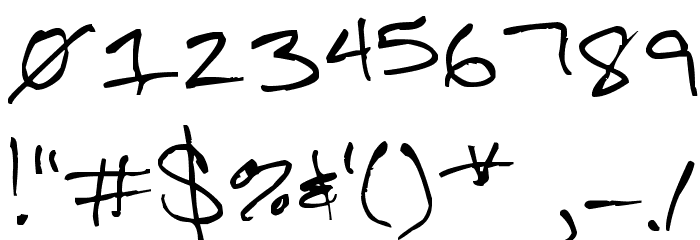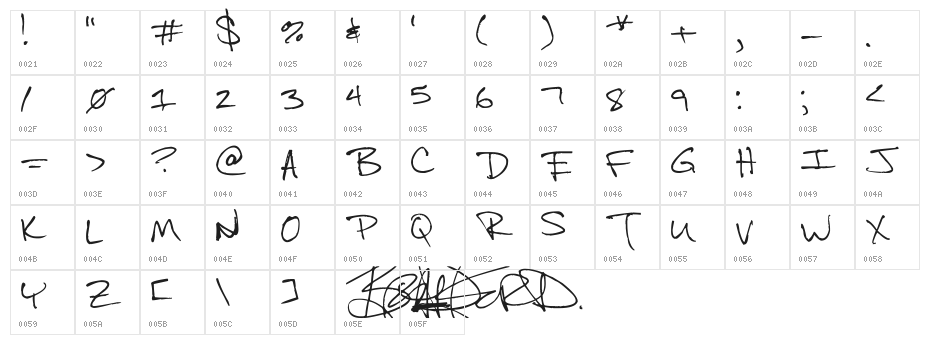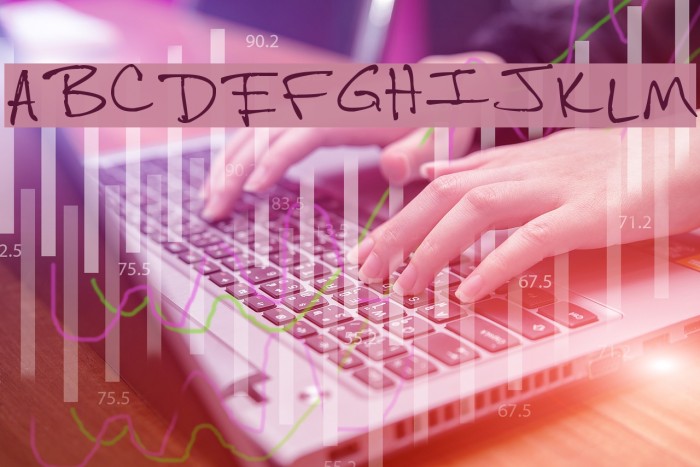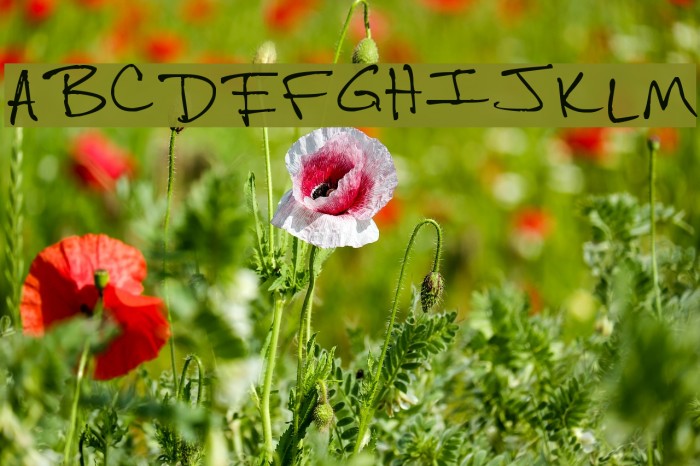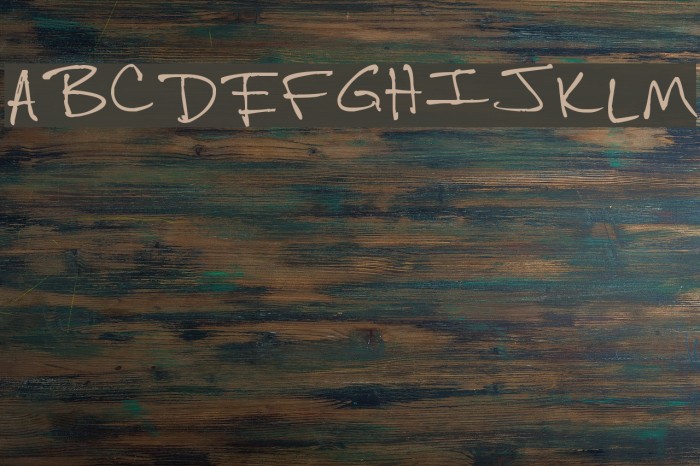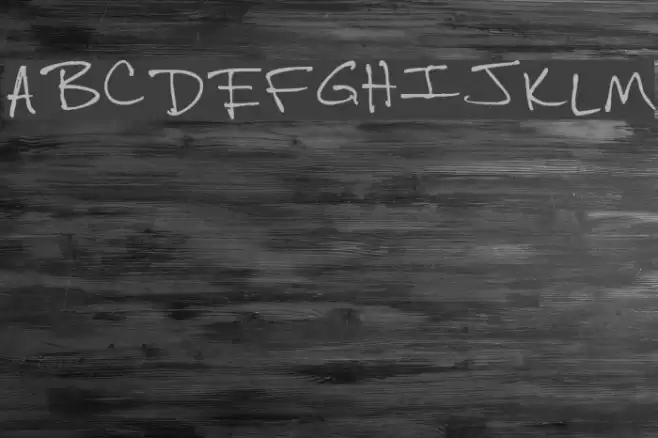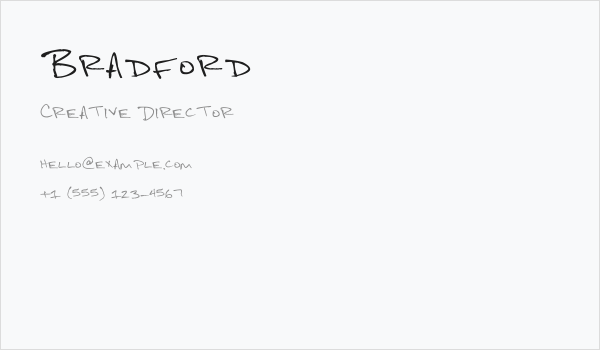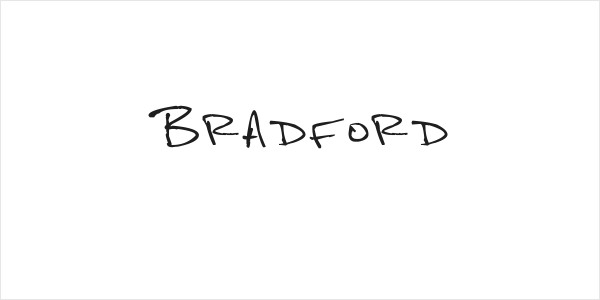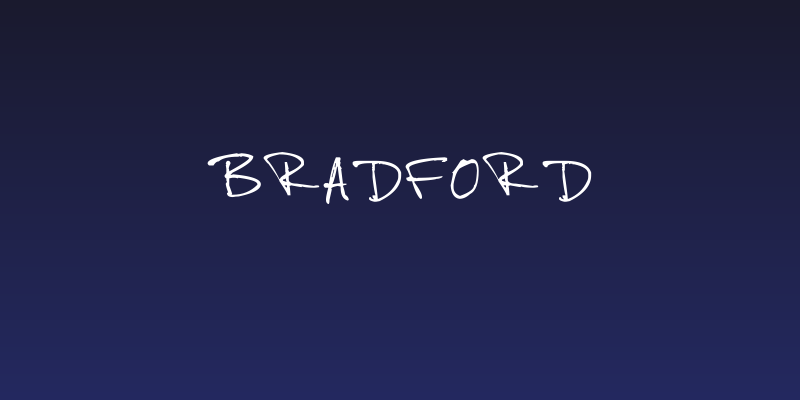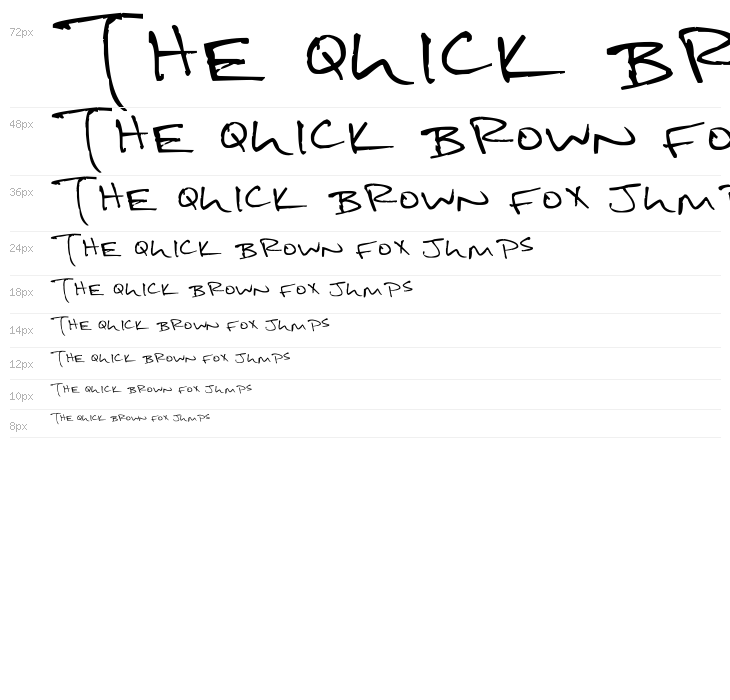
Bradford Font
Bradford Description
This font exudes a casual and handwritten style, characterized by its fluid and organic strokes. The letters have a natural, free-flowing appearance, reminiscent of quick, expressive handwriting. The uppercase and lowercase letters maintain a consistent style, with slight variations that add to the font's charm. The numerals and special characters follow the same handwritten aesthetic, ensuring a cohesive look across all text. The overall impression is informal and approachable, making it suitable for projects that require a personal touch.
Overall StyleCasual, Informal
Use CaseLogos, Invitations, Personal notes
Proposed ProjectsIdeal for personal notes, invitations, greeting cards, and creative projects that benefit from a handwritten touch.